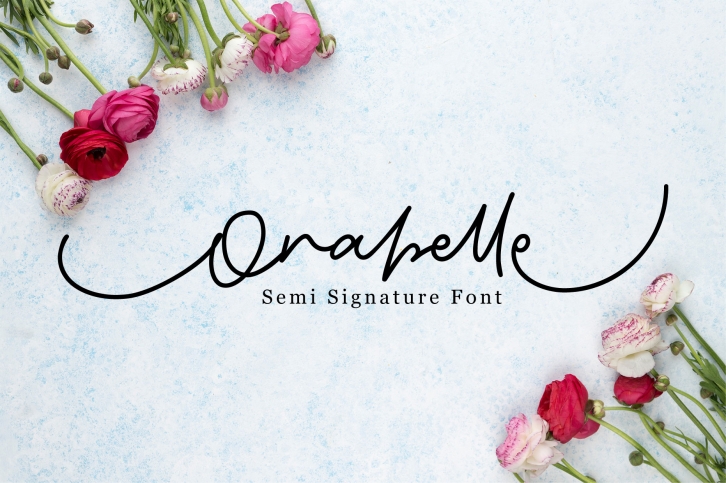
Orabelle Semi Signature s is a great font that was designed by Crump Hand. Imagine the amount of combinations you can create using this font! The archive is 18.53 MB and it was released on December 11, 2018. Orabelle Semi Signature s looks beautiful on wedding invitations, greeting cards, logos, posters, labels, t-shirt designs, logos, business cards and is perfect for use in ink or watercolor works, fashion, magazines, packaging and food menus, children's books and more!